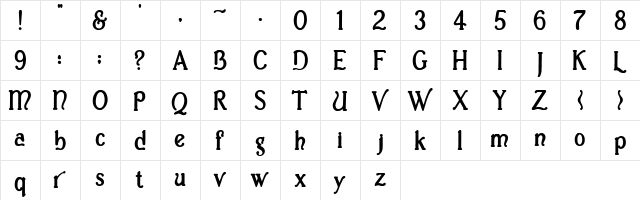
Casua_Bold Regular
| Designer | PJL |
Design Context for Casua_Bold Typeface
Casua_Bold is a composed and adaptable typeface that performs quietly and consistently across a wide range of design contexts. The heavy weight commands attention and anchors typographic hierarchies.